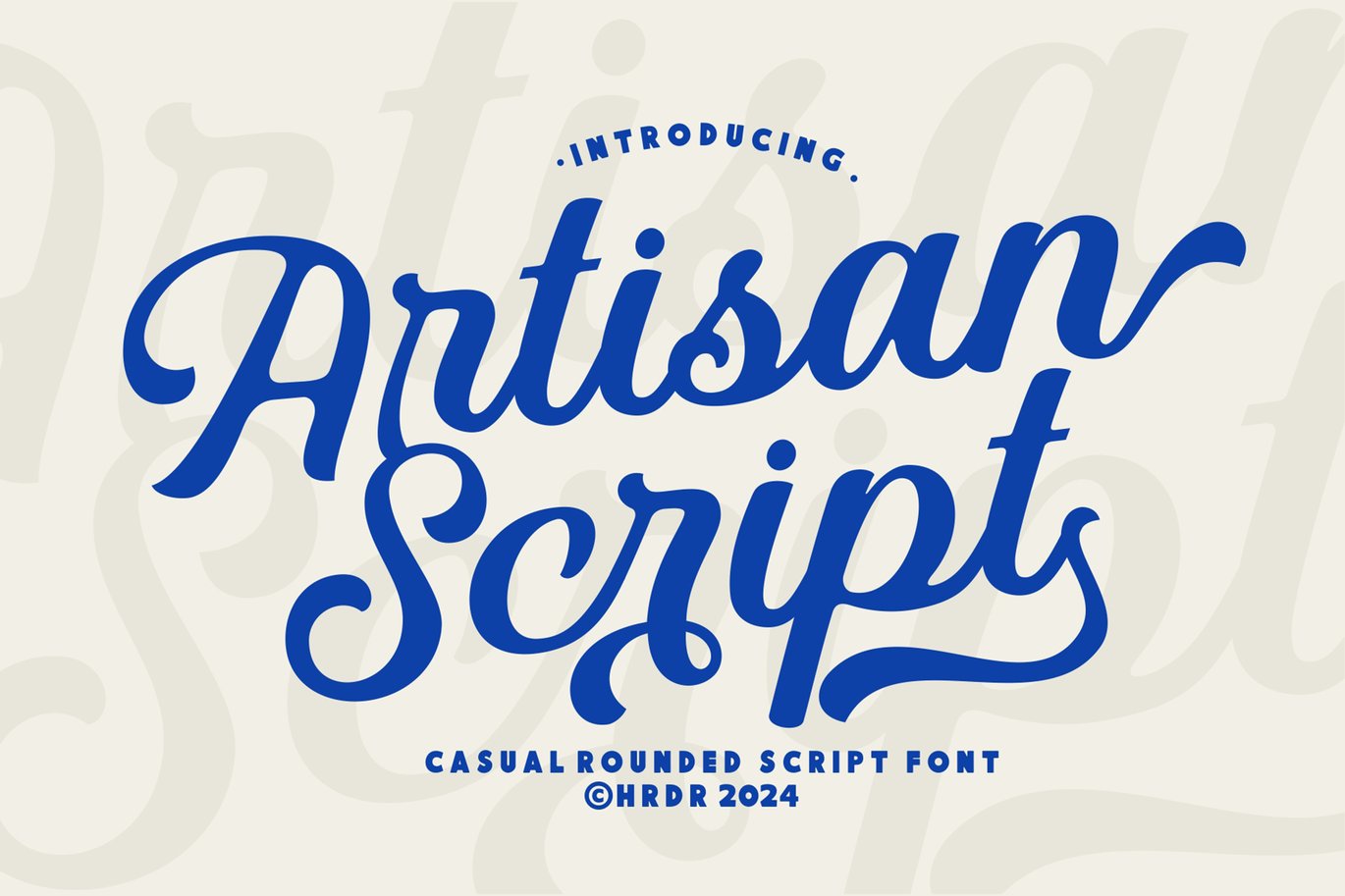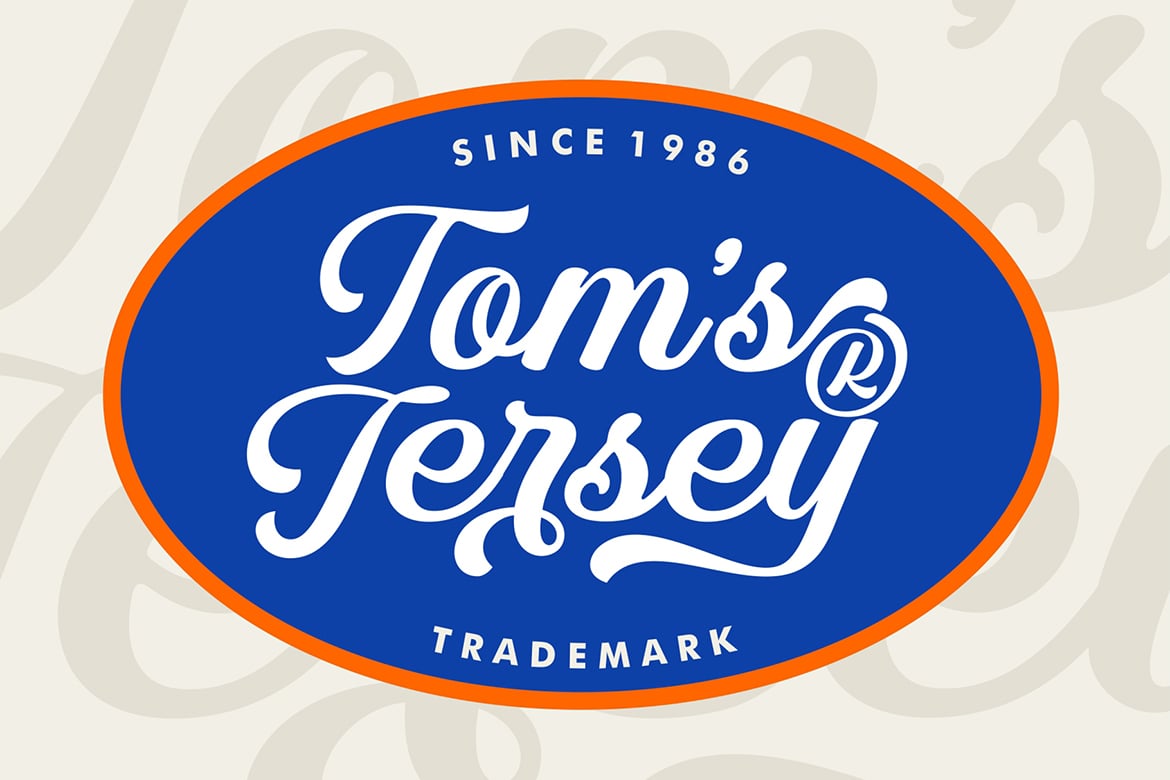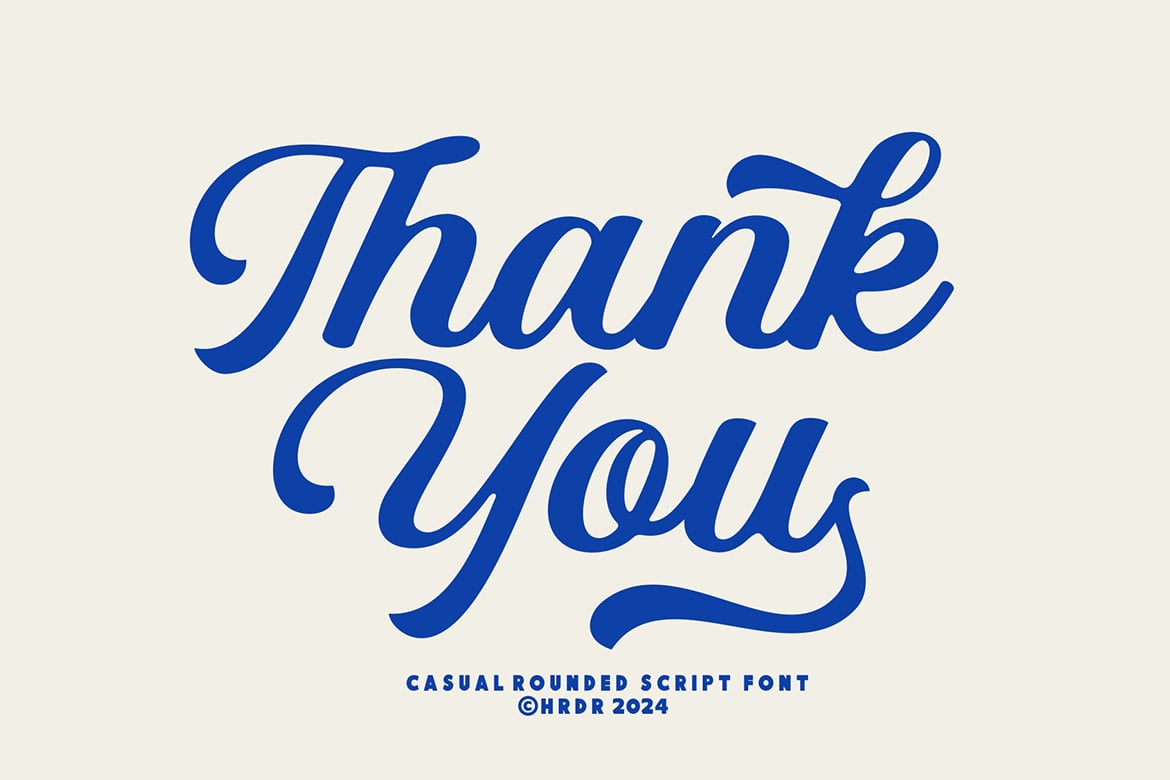
Artisan Script – Rounded Casual font
Artisan Script – Rounded Casual font is a versatile typeface ideal for various projects, including N/A, logos, branding, posters, blog headers, advertisements. The free version includes a full set of uppercase and lowercase letters, available in OTF, TTF format.